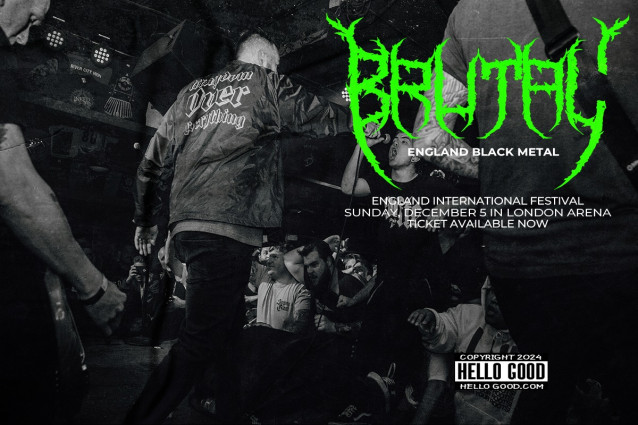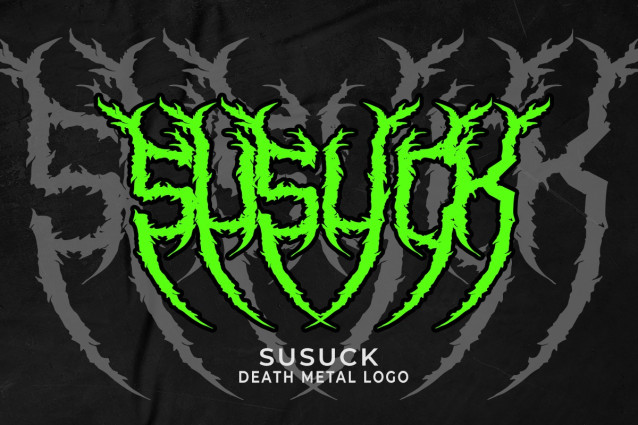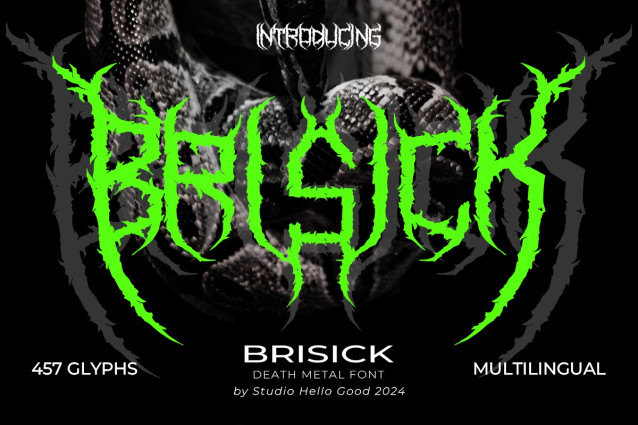
Brisick Display Font
Brisick Display Font is a brutal and aggressive death metal font that embodies the raw power and intensity of the genre. With jagged, razor-sharp edges and bold, chaotic strokes, this font exudes a dark, rebellious energy that is perfect for heavy music bands, album covers, and extreme designs. The letters are crafted with a rugged, hand-drawn feel, evoking a sense of raw emotion and primal force. Brisick is ideal for those who want to make a bold, visceral statement with their typography, combining the fierce aesthetics of death metal with a striking, edgy design.